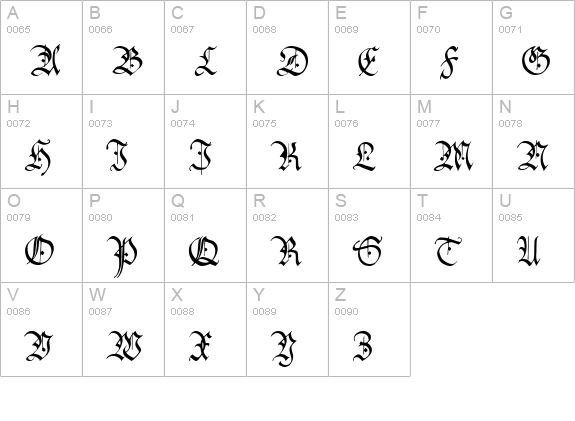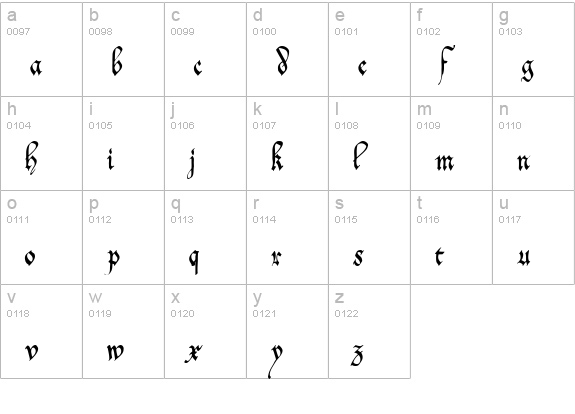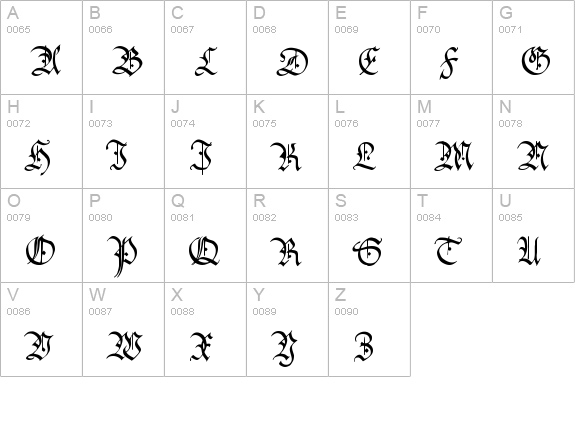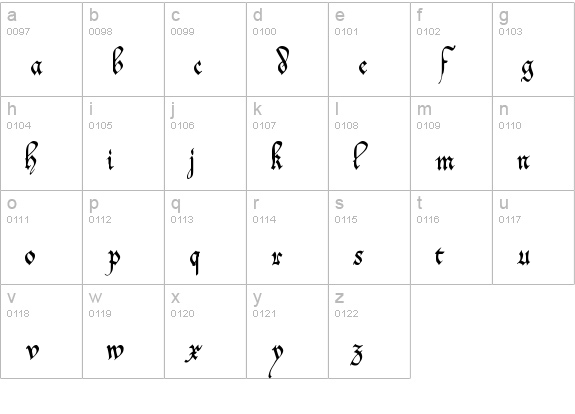
Offenbach Chancery Font Details
Offenbach Chancery is a sophisticated and elegant font that exudes timeless charm and sophistication. With its graceful curves and intricate details, this font is perfect for adding a touch of refinement to any project. Whether you are designing invitations, branding materials, or editorial content, Offenbach Chancery will elevate your design to new heights. What makes Offenbach Chancery even more appealing is that it is available for free download at FontsMarket.com. This means that you can access this stunning font without any cost, making it a valuable addition to your font collection. Don't miss out on the opportunity to enhance your designs with the beauty and grace of Offenbach Chancery. Download it today and elevate your creative projects to new levels of sophistication.